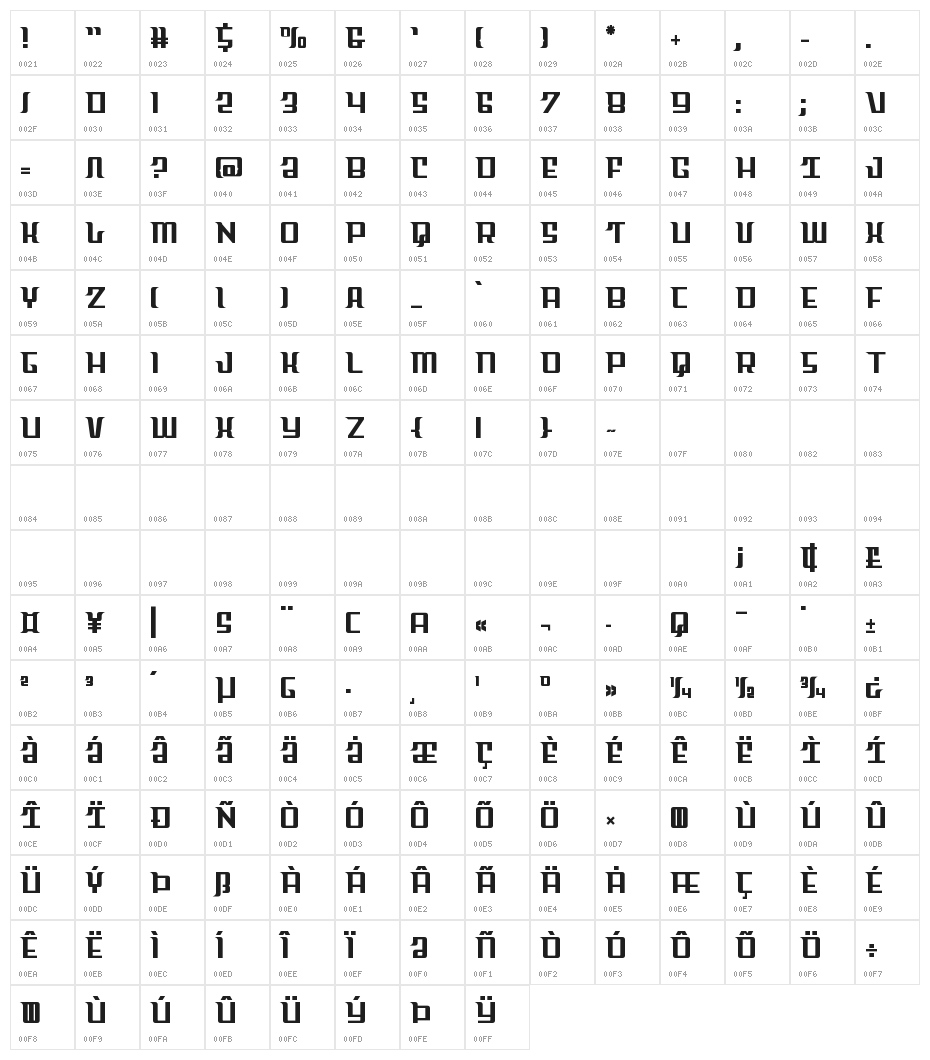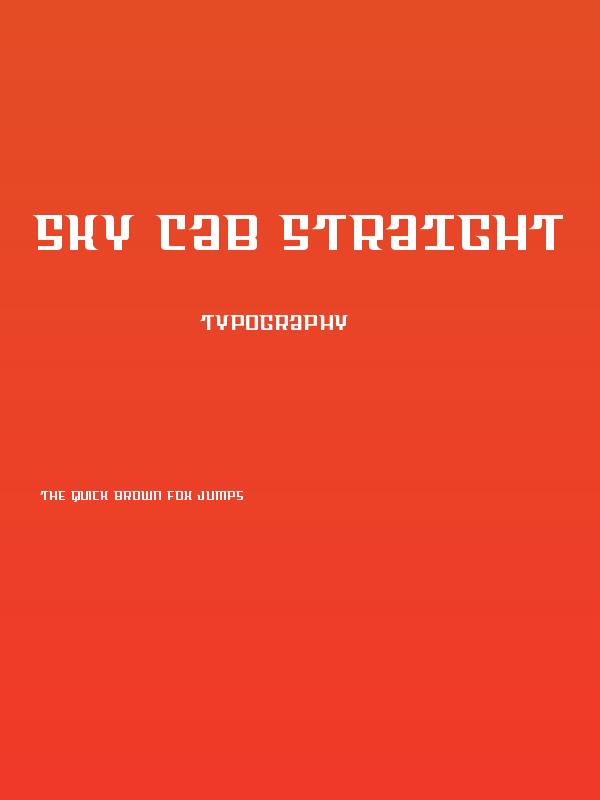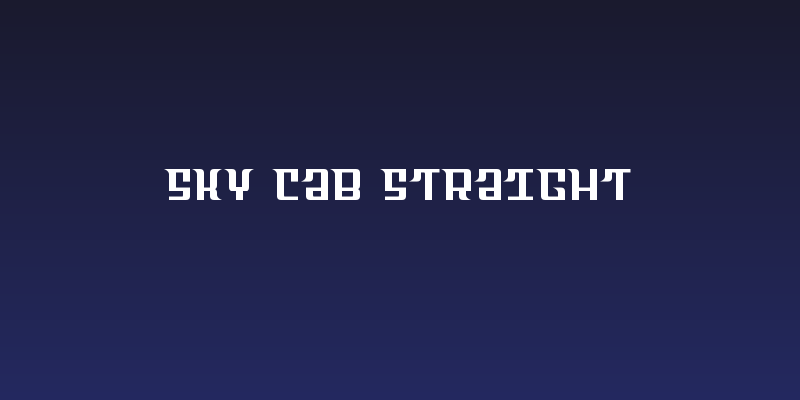
Sky Cab Straight Font
Sky Cab Straight Description
This font features a bold, geometric design with a strong emphasis on angular shapes and sharp edges. The characters are constructed with a uniform stroke width, giving it a monospaced appearance. The uppercase and lowercase letters maintain a consistent height, contributing to a cohesive and structured look. The numerals and special characters follow the same design principles, ensuring a harmonious overall style. The font's distinct, modern aesthetic makes it suitable for projects that require a futuristic or industrial feel.
| Proposed Projects | Ideal for branding, posters, signage, and any design work that requires a futuristic or industrial touch. |